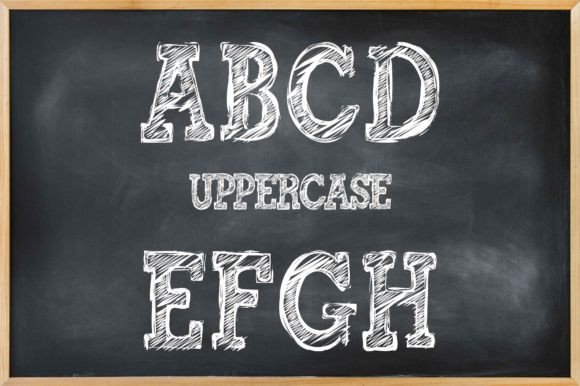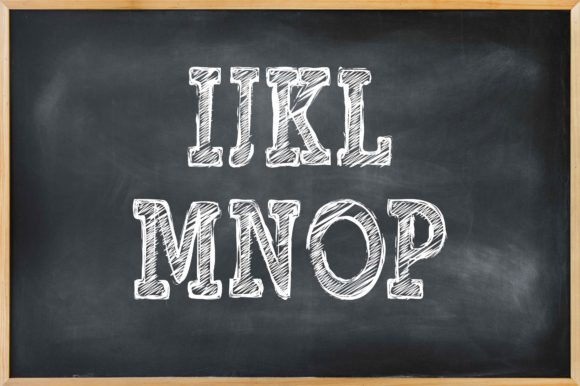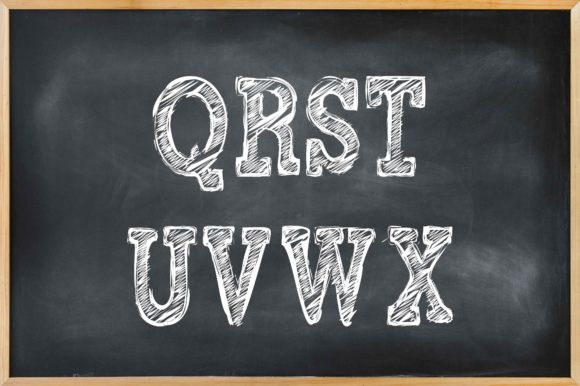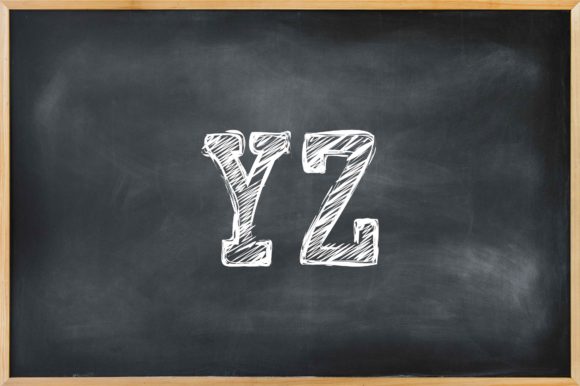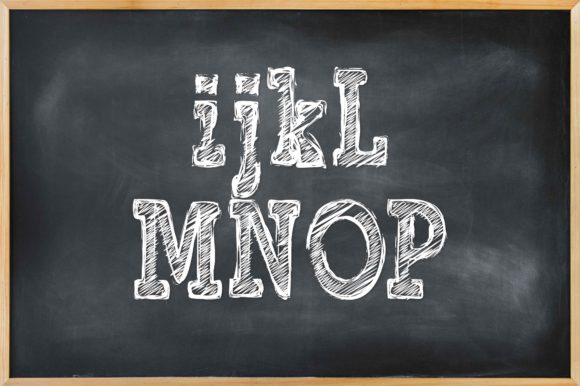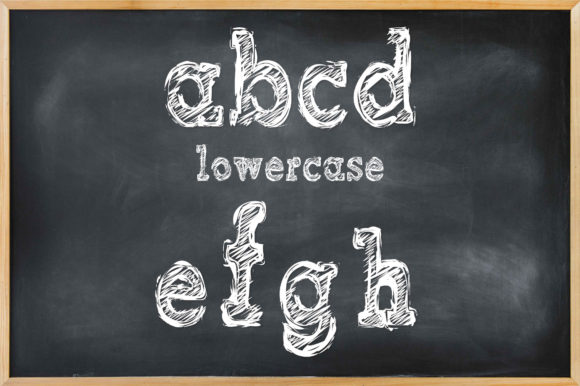
Chalkboard Font: The Perfect Addition to Your Design Arsenal
Are you tired of using the same old fonts in your designs? Look no further than the Chalkboard font, a cute and attention-grabbing typeface that’s perfect for headings. With its unique slab serif aspects, this font is versatile enough to be used in both modern and vintage themes, making it a great addition to your design arsenal.
What is Chalkboard Font?
Chalkboard font is a typeface that mimics the look of chalkboard writing. It’s a digital font that replicates the imperfect, hand-drawn look of chalk writing on a chalkboard. The font is characterized by its thick, bold lines and rough texture, giving it a distinctive and charming look.
Why Use Chalkboard Font?
So, why should you use Chalkboard font in your designs? Here are just a few reasons:
- Attention-grabbing: The Chalkboard font is a real showstopper. Its bold, chunky lines and rough texture make it impossible to ignore, making it perfect for headings and titles.
- Versatile: Despite its slab serif aspects, the Chalkboard font can be used in a wide range of design themes, from modern and sleek to vintage and distressed.
- Themed designs: The Chalkboard font is perfect for designs that require a school or educational theme. It’s also great for Italian food, vegan, and health-related designs, as well as web designs that need a unique, sketchy effect.
Best Uses for Chalkboard Font
So, what are the best uses for the Chalkboard font? Here are some ideas to get you started:
- Posters: Use the Chalkboard font to create eye-catching posters for events, promotions, or announcements.
- Social media posts: Add a touch of personality to your social media posts with the Chalkboard font. It’s perfect for creating engaging and shareable content.
- YouTube channels: Use the Chalkboard font to create custom thumbnails or intro sequences for your YouTube channel.
- Web design: Add a unique, sketchy effect to your web design with the Chalkboard font. It’s perfect for headings, titles, and other design elements.
- School-related designs: The Chalkboard font is a natural fit for school-related designs, such as flyers, brochures, and posters.
Tips for Using Chalkboard Font
Here are some tips for using the Chalkboard font effectively in your designs:
- Use it sparingly: While the Chalkboard font is attention-grabbing, it can be overwhelming if used too much. Use it sparingly to create visual interest and emphasis.
- Pair it with other fonts: The Chalkboard font pairs well with clean, sans-serif fonts. Try pairing it with a font like Arial or Helvetica for a striking contrast.
- Experiment with colors: The Chalkboard font looks great in a range of colors, from bright and bold to muted and pastel. Experiment with different colors to find the perfect look for your design.
In conclusion, the Chalkboard font is a versatile and attention-grabbing typeface that’s perfect for designers and crafters. Its unique slab serif aspects and rough texture make it a great addition to any design, from modern and sleek to vintage and distressed. With its wide range of uses and applications, the Chalkboard font is sure to become a staple in your design arsenal.
Get Creative with Chalkboard Font
So, what are you waiting for? Get creative with the Chalkboard font and take your designs to the next level. Whether you’re a seasoned designer or a crafty DIY enthusiast, this font is sure to inspire and delight.